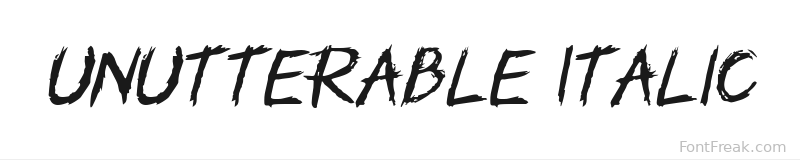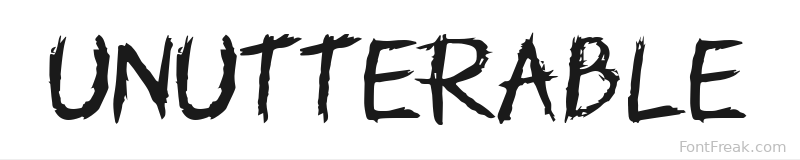
Unutterable
Unutterable Italic
The Unutterable font by GGBot is a striking display typeface that captures attention with its unique visual style. This font falls into the decorative category, showcasing a bold, hand-drawn aesthetic that suggests spontaneity and creativity. The irregular stroke weight and rough edges give it a dynamic feel, while the italicized form enhances its expressiveness. The font's design features a moderate contrast in thickness, which adds depth to the letters and draws the eye, making it suitable for various applications.
Unutterable is perfect for a range of creative projects. Its expressive nature makes it an excellent choice for wedding invitations, where a personal touch is desired. Additionally, this font can elevate movie posters, lending a sense of drama and intrigue to the title. Restaurant menus will also benefit from its bold presence, capturing diners' attention and enhancing the overall dining experience. Furthermore, it serves well in branding for small businesses looking to establish a unique identity, particularly in artistic or youthful markets.
The target audience for the Unutterable font includes graphic designers, small business owners, and content creators who seek a distinctive and memorable typeface. Whether you're designing a flyer, logo, or digital content, the Unutterable font free download provides an accessible option without compromising on style.
What sets the Unutterable font apart is its ability to convey emotion and authenticity through its distinctive design. It invites creativity and encourages users to think outside the box, making it a valuable addition to any designer’s toolkit. With its bold character and versatile applications, Unutterable stands as a testament to the power of typography in communication and design.